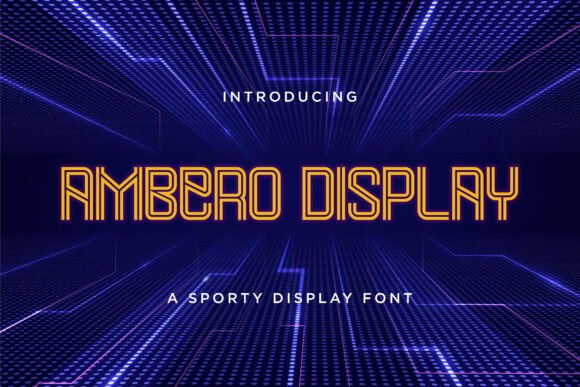
Introducing Ambero Font: The Ultimate Modern Sporty Font for Energetic Designs
In the world of typography, fonts play a crucial role in conveying the tone and personality of a brand or design. When it comes to creating energetic and dynamic designs, a font that exudes modernity and sportiness is essential. This is where Ambero Font comes into play. Designed to bring energy and dynamism to your projects, Ambero Font is a modern sporty font that is perfect for sports branding, fitness apparel, gaming, and futuristic-themed designs.
What is Ambero Font?
Ambero Font is a sleek and geometric typeface that features unique line details, making it stand out from other fonts in its category. Its bold and structured appearance ensures high readability, making it an excellent choice for headlines, posters, and digital content. The font’s modern design and sporty vibe make it an ideal choice for designers looking to create energetic and dynamic designs.
Key Features of Ambero Font
- Sleek Geometric Letterforms: Ambero Font features sleek and geometric letterforms that give it a modern and sporty look.
- Unique Line Details: The font’s unique line details add an extra layer of dynamism to its design, making it perfect for energetic and bold designs.
- High Readability: Ambero Font’s bold and structured appearance ensures high readability, making it suitable for headlines, posters, and digital content.
- Multi-Language Support: The font supports multiple languages, allowing for versatile usage across global markets.
Use Cases for Ambero Font
Ambero Font is a versatile typeface that can be used in a variety of design projects. Here are some of the ideal use cases for this modern sporty font:
- Sports Branding: Ambero Font is perfect for sports branding, including logos, jerseys, and sports equipment.
- Fitness Apparel: The font’s modern and sporty design makes it an excellent choice for fitness apparel, including gym wear and athletic wear.
- Gaming: Ambero Font’s bold and dynamic design makes it suitable for gaming-related designs, including game titles, logos, and in-game text.
- Futuristic-Themed Designs: The font’s sleek and geometric design makes it perfect for futuristic-themed designs, including sci-fi movies, video games, and technology-related projects.
Benefits of Using Ambero Font
Using Ambero Font in your design projects offers several benefits, including:
- Unique and Modern Design: Ambero Font’s unique and modern design sets it apart from other fonts in its category.
- High Readability: The font’s bold and structured appearance ensures high readability, making it suitable for a variety of design projects.
- Versatility: Ambero Font supports multiple languages, making it a versatile choice for designers working on global projects.
- Time-Saving: The font’s pre-designed letterforms and line details save designers time and effort in creating custom typography.
In conclusion, Ambero Font is a modern sporty font that is perfect for designers looking to create energetic and dynamic designs. Its sleek geometric letterforms, unique line details, and high readability make it an excellent choice for sports branding, fitness apparel, gaming, and futuristic-themed designs. With its multi-language support and versatility, Ambero Font is a valuable addition to any designer’s font library.
Elevate Your Typography with Ambero Font